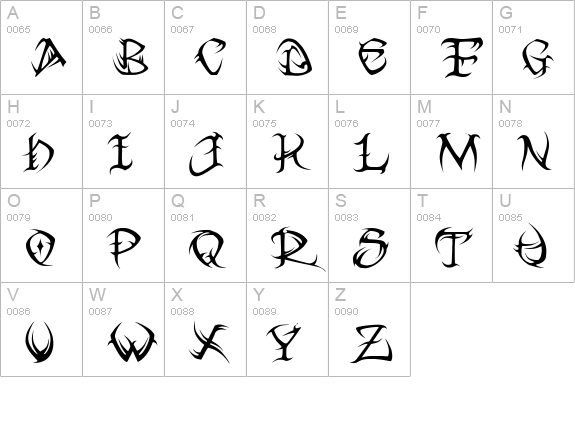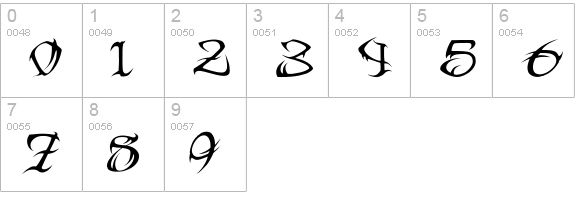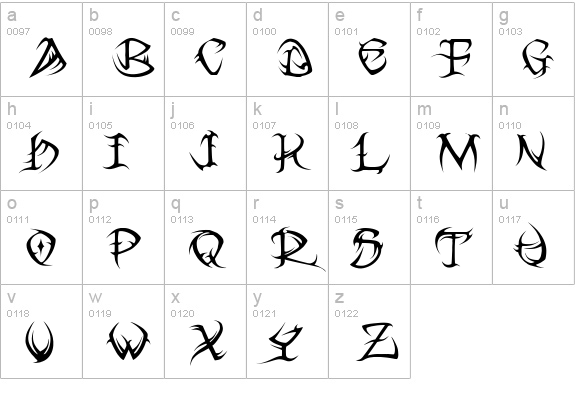
Introducing Tribal font, a captivating typeface that embraces the essence of ancient cultures and tribal art. This unique font is meticulously designed to capture the intricate patterns and bold strokes often associated with tribal imagery. With its strong and powerful presence, Tribal font adds an authentic touch to any design project. What sets Tribal font apart is not only its striking aesthetic, but also its accessibility. This remarkable font is available to download for free at FontsMarket.com. Yes, you heard it right – absolutely free! Now you can effortlessly infuse your designs with the spirit of tribal heritage without breaking the bank. Whether you're creating a logo, designing a poster, or crafting a tattoo, Tribal font is the perfect choice to make a lasting impression. Its versatility allows it to be used in a variety of contexts, from bold headlines to intricate details. The clean lines and precise curves of this font bring a sense of professionalism and refinement to any project. Download Tribal font today from FontsMarket.com and let your creativity soar. With its unique blend of tribal inspiration and modern design, this font is sure to leave a lasting impact on your audience. Don't miss out on this incredible opportunity to enhance your designs with a free font that truly stands out.